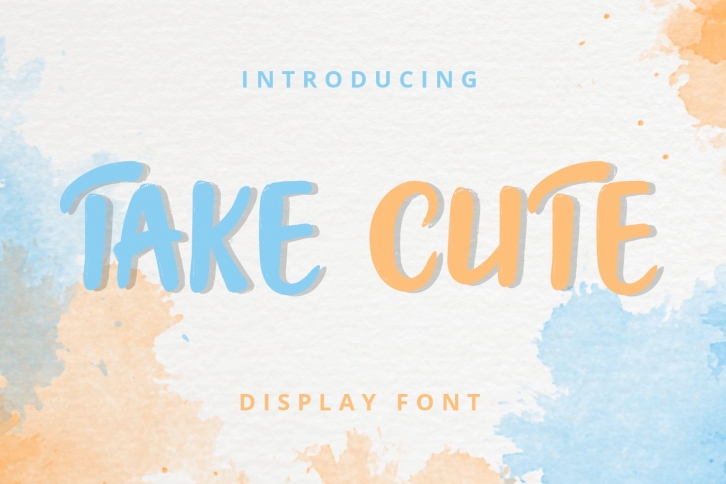
Take Cute is a trendy and unique font with an authentic style. It was designed by jupiter7 and it's a great choice for creative people who need such a font. It was released on January 29, 2021 and the file size is 10.2 MB. Take Cute will add an organic vibe to any design idea!